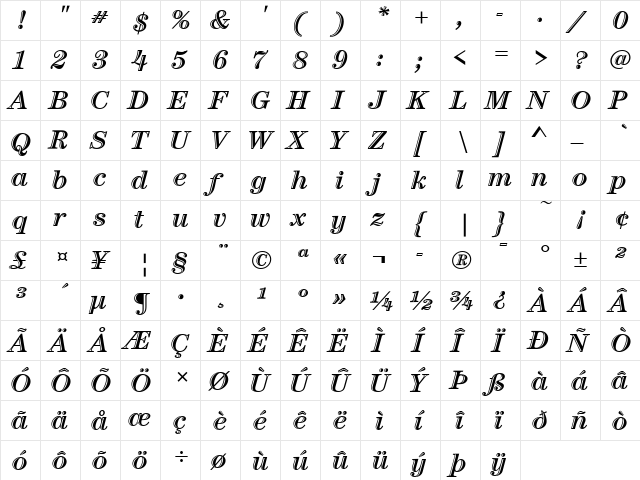
Century Handtooled ITC Italic Font Preview
Century Handtooled ITC Italic
Century Handtooled ITC Italic Font Details
Design Context for Century Handtooled ITC Typeface
Century Handtooled ITC brings a calligraphic fluidity to the page — its connecting strokes and expressive curves give it an unmistakably human quality.